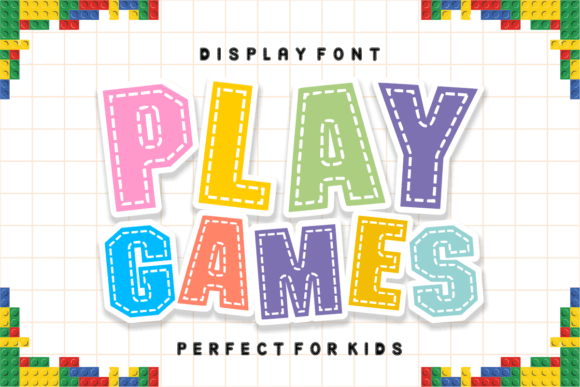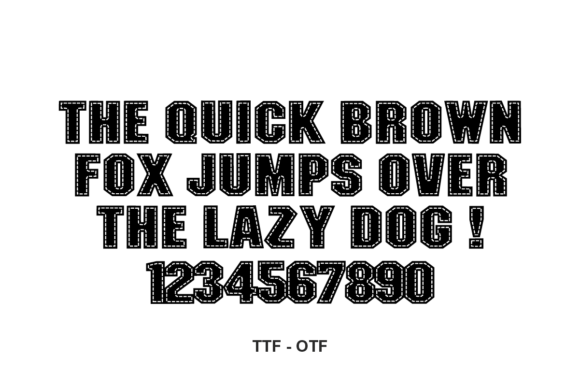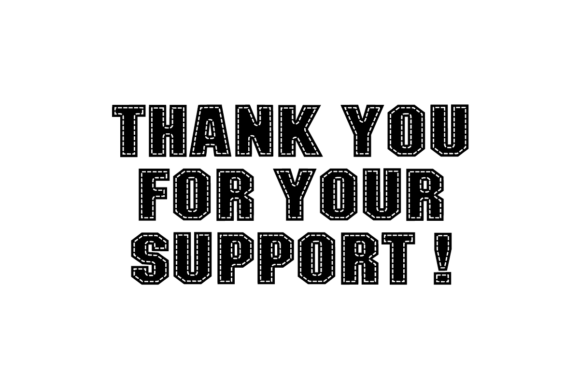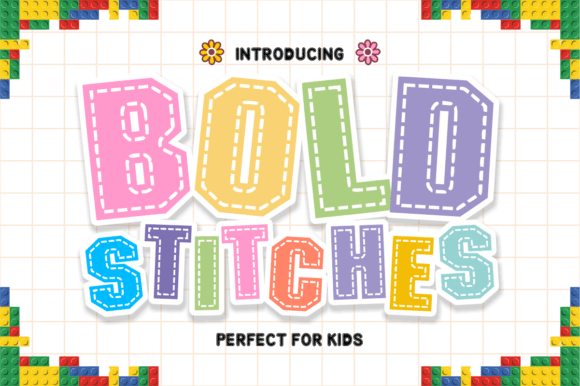
🧵 Introducing Bold Stitches Font: Elevate Your Designs with a Playful, Handmade Touch 🧵
Are you tired of using the same old fonts in your designs? Do you want to add a touch of personality and whimsy to your projects? Look no further than Bold Stitches font! This fun, chunky display font is perfect for designers and crafters who want to make their work stand out from the crowd. With its charming dashed-line detail and thick, blocky structure, Bold Stitches is the ultimate crafting companion for anyone looking to add a playful, handmade feel to their designs.
What Makes Bold Stitches Font So Special?
Bold Stitches font features a unique and charming dashed-line detail that mimics real needlework. This internal stitching adds a touch of craft and creativity to any design, making it perfect for projects that require a personal touch. The font’s thick, blocky structure makes it incredibly easy to read, even at smaller sizes, while the clean lines and simple shape ensure that it looks amazing on everything from digital screens to printed fabrics.
The Ultimate Crafting Companion
Whether you’re designing for school, sports, or a hobby, Bold Stitches font brings energy and a “DIY” vibe to your work. Its versatility makes it perfect for a wide range of projects, from crafting and sewing to graphic design and digital art. With Bold Stitches, you can add a playful touch to your designs and make them stand out from the crowd.
Bold Stitches font is a must-have for designers and crafters who want to add a personal touch to their work. Its unique and charming design makes it perfect for a wide range of projects, including:
• Crafting and sewing projects, such as fabric labels and patterns
• Graphic design projects, such as logos and branding materials
• Digital art projects, such as illustrations and graphics
• School projects, such as posters and presentations
• Sports and hobby projects, such as team logos and equipment labels
Why Choose Bold Stitches Font?
There are many reasons why Bold Stitches font is the perfect choice for designers and crafters. Here are just a few:
• Unique and charming design: Bold Stitches font features a unique and charming dashed-line detail that sets it apart from other fonts.
• Easy to read: The font’s thick, blocky structure makes it incredibly easy to read, even at smaller sizes.
• Versatile: Bold Stitches font is perfect for a wide range of projects, from crafting and sewing to graphic design and digital art.
• Playful and handmade feel: Bold Stitches font adds a playful and handmade feel to any design, making it perfect for projects that require a personal touch.
How to Use Bold Stitches Font
• Pair it with other fonts: Bold Stitches font pairs well with other fonts, such as sans-serif fonts and script fonts.
• Use it for headings and titles: Bold Stitches font is perfect for headings and titles, where its unique and charming design can really shine.
• Add a personal touch: Use Bold Stitches font to add a personal touch to your designs, such as on fabric labels or equipment labels.
In conclusion, Bold Stitches font is a fun, chunky display font that is perfect for designers and crafters who want to add a playful, handmade feel to their designs. With its unique and charming dashed-line detail and thick, blocky structure, Bold Stitches is the ultimate crafting companion for anyone looking to make their work stand out from the crowd. So why wait? Download Bold Stitches font today and start creating designs that are truly one-of-a-kind! 🧩